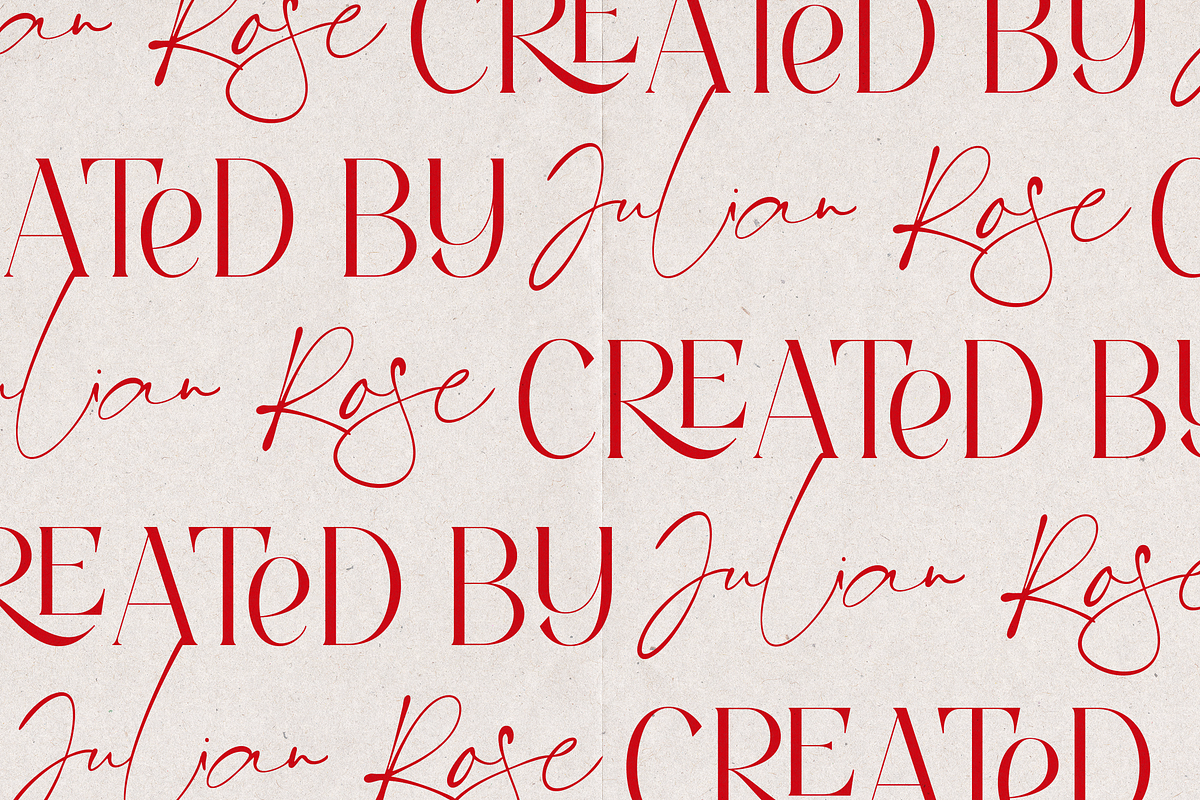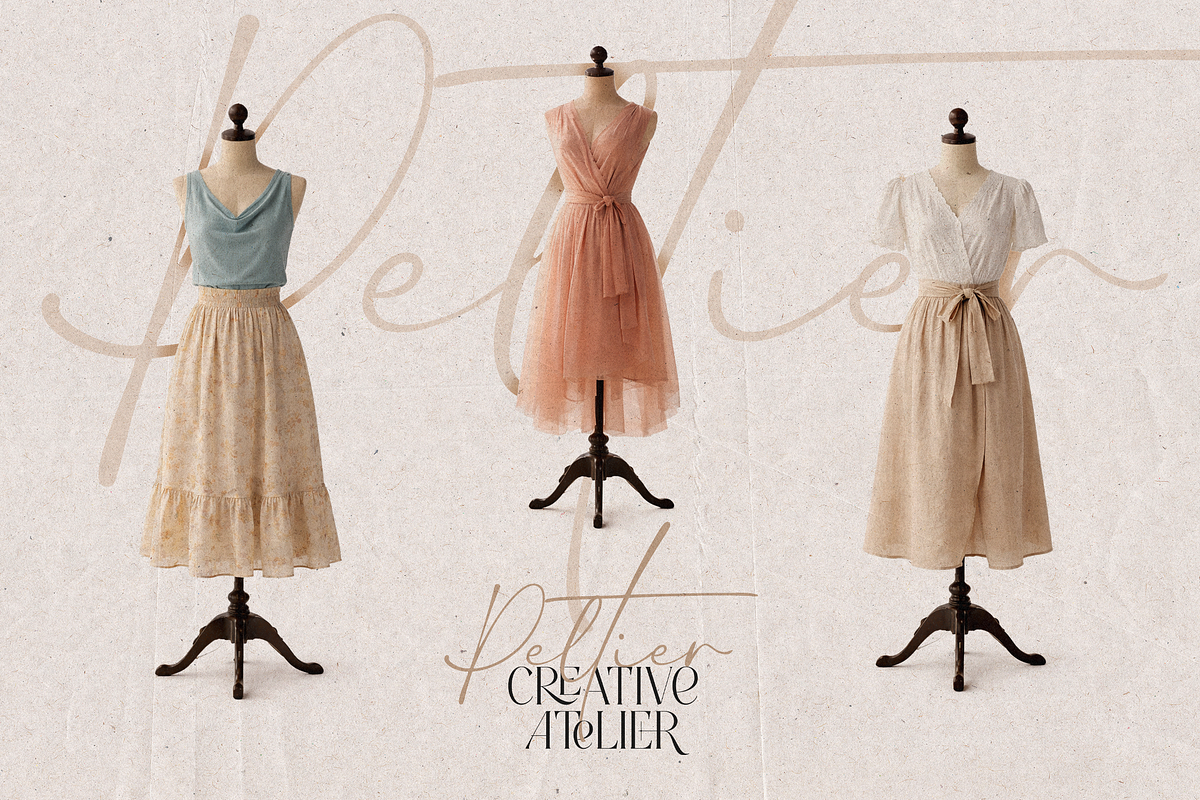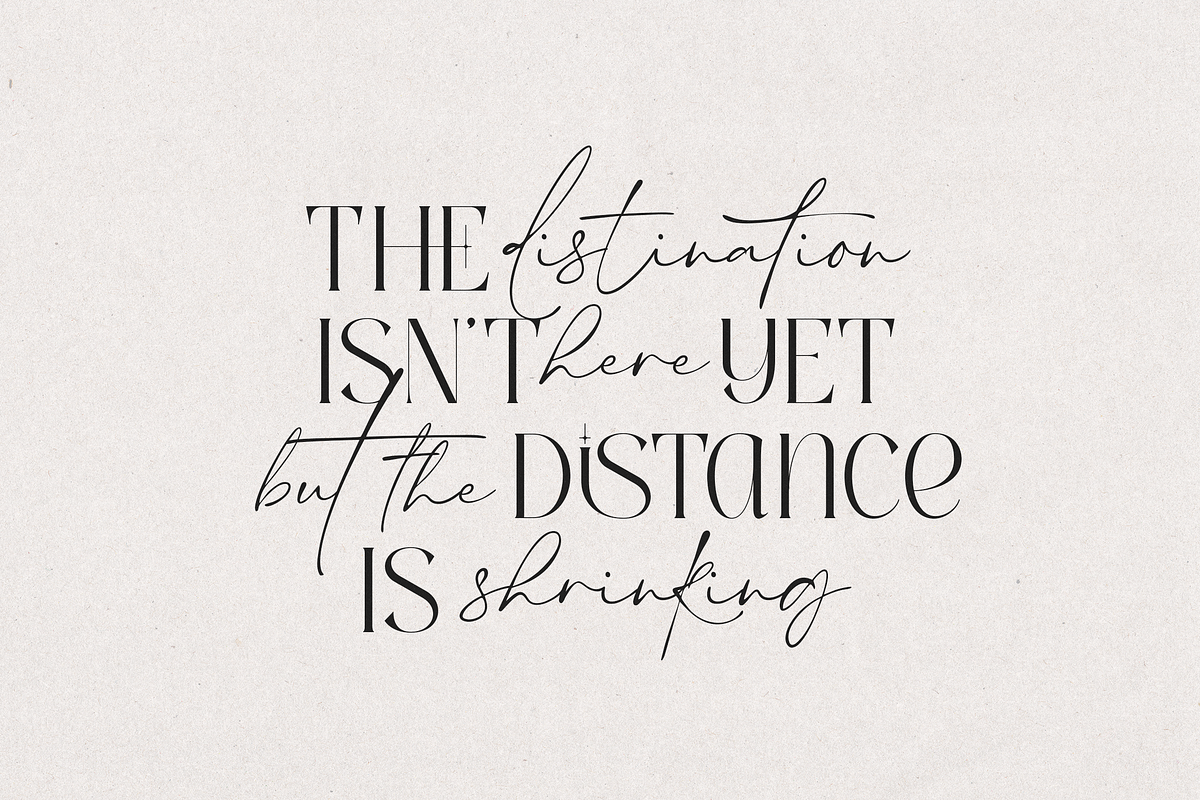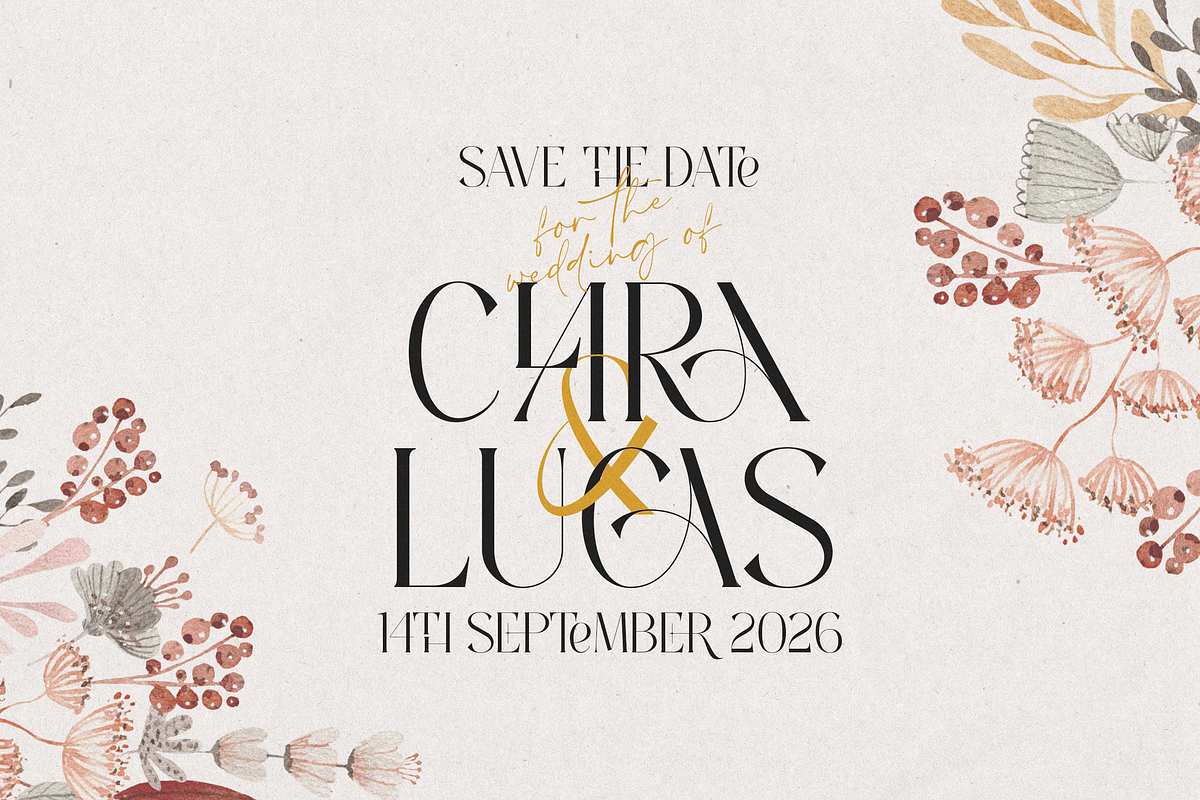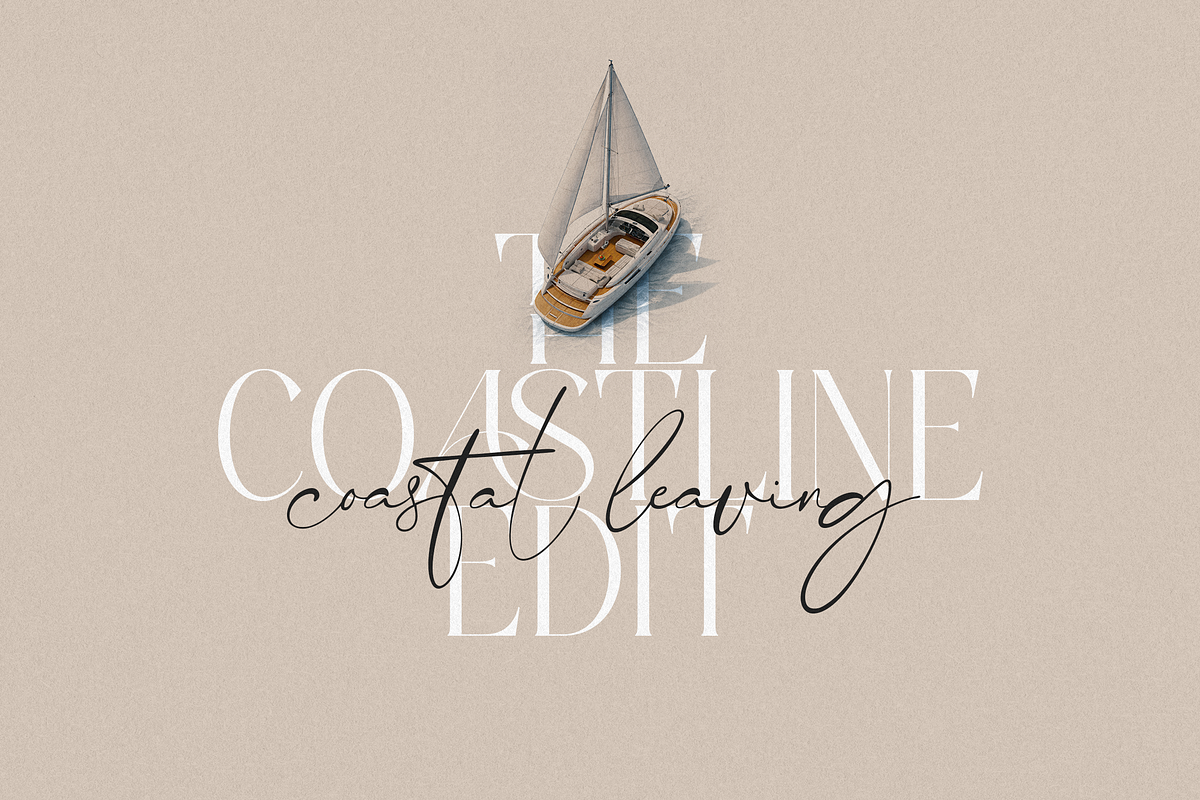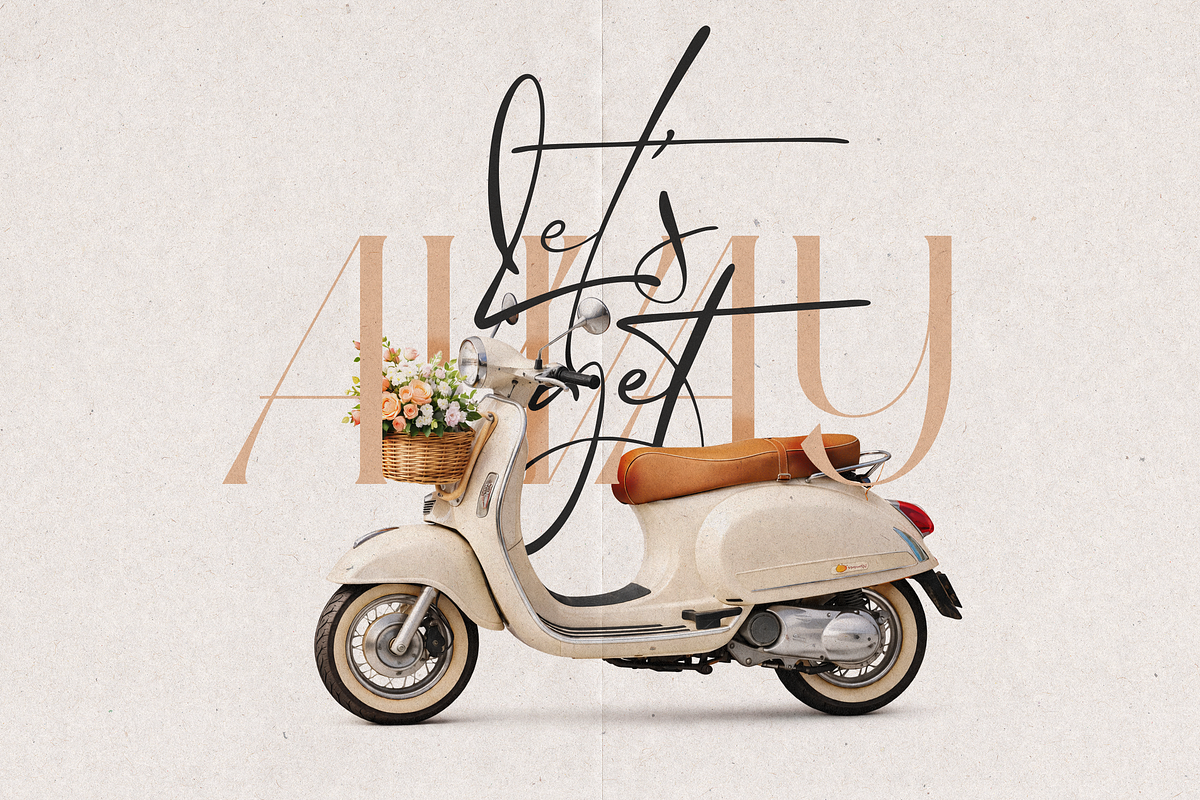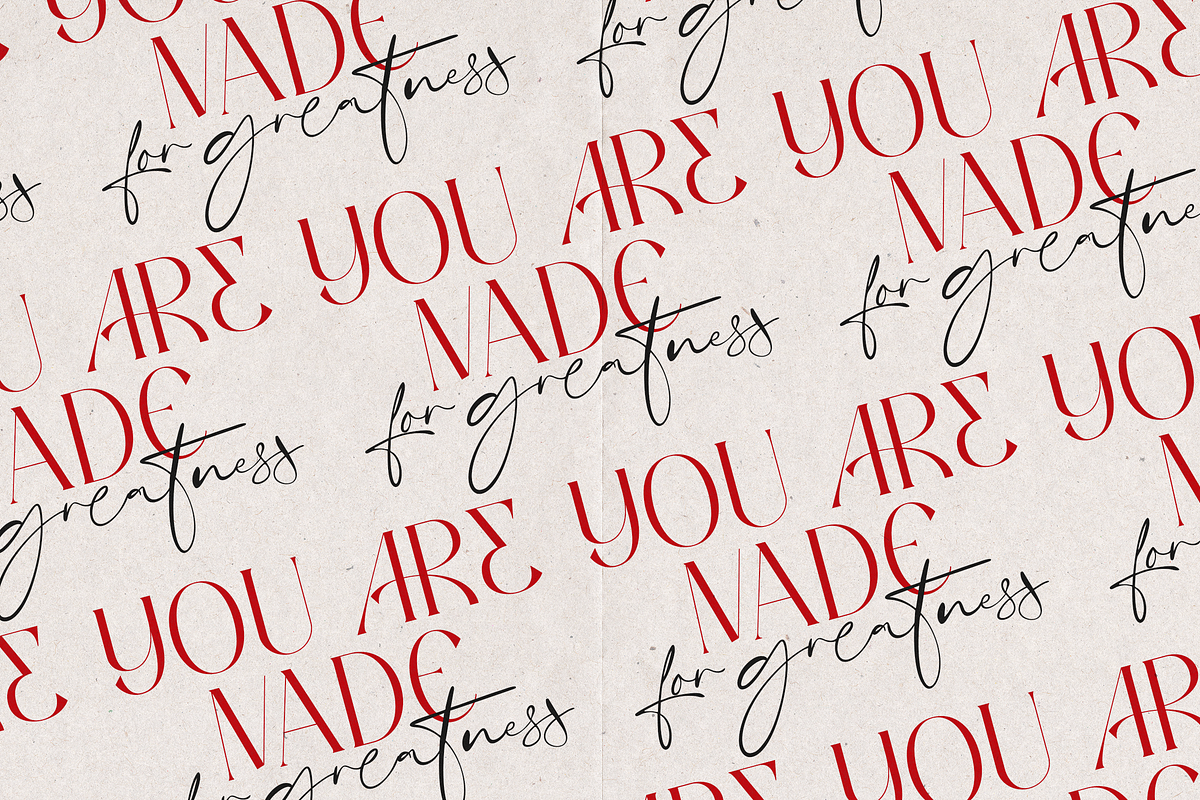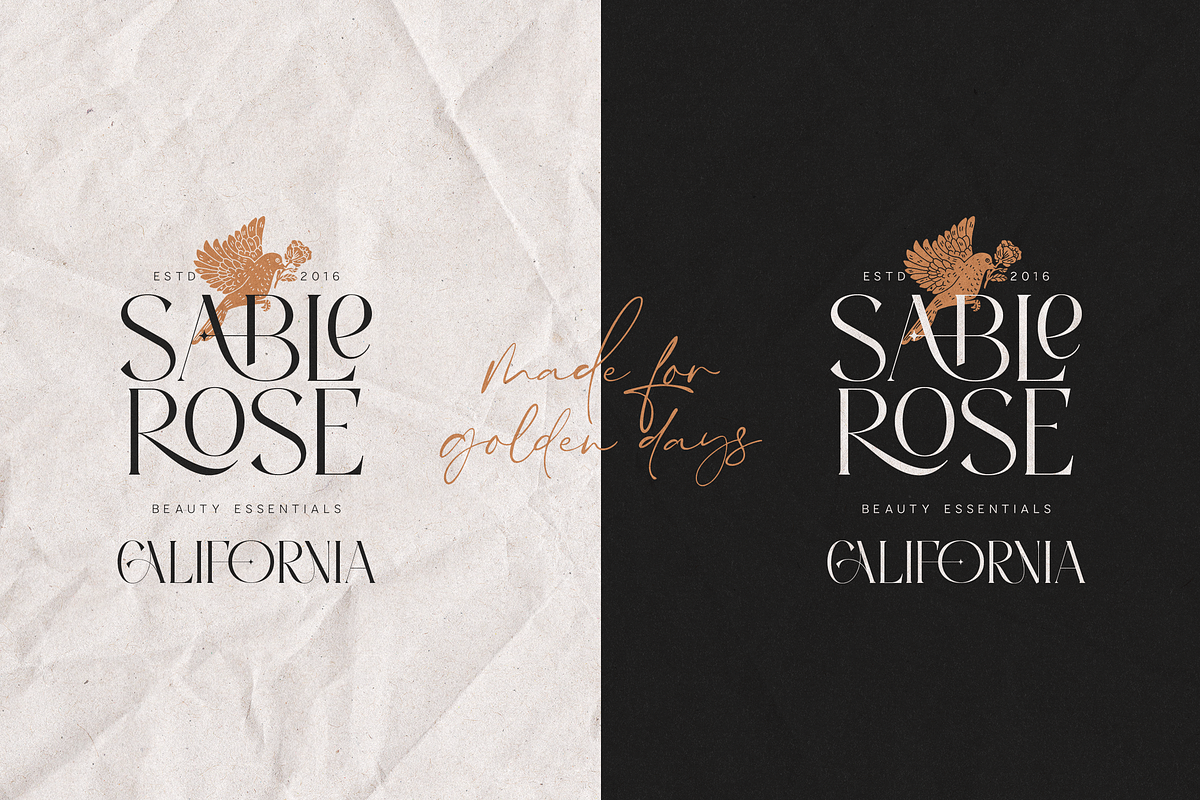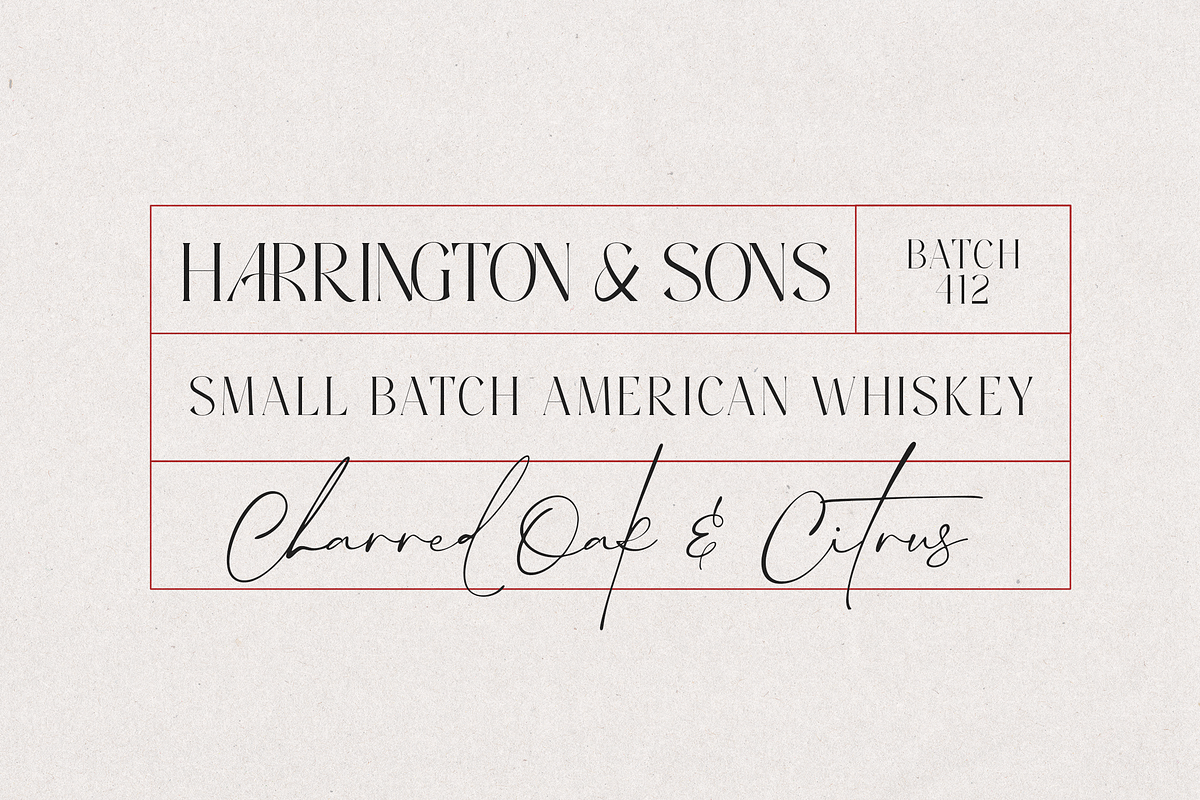
Anna Glave - Serif & Script Font Duo
Anna Glave - Romantic Serif & Script Font Duo
Anna Glave is a refined romantic font duo that blends a modern high-contrast serif with a graceful handwritten script, designed to create elegant, emotional, and timeless typography. This duo is crafted for designers who want to elevate branding with a sense of luxury, nostalgia, and modern sophistication.
Inspired by classic editorial typography and romantic calligraphy, Anna Glave delivers a perfect balance between structure and expression - making it ideal for both bold headlines and intimate handwritten accents.
Why Anna Glave Works So Well
The serif font features sharp details, stylish ligatures, and fashion-forward proportions that feel premium and editorial. The script font adds warmth and personality with fluid strokes, expressive swashes, and multiple stylistic sets - allowing you to customize your typography and create unique compositions every time.
Together, they form a powerful pairing for high-end branding and storytelling design.
- Elegant Serif + Script Font Duo
- High-contrast modern serif with stylish ligatures
- Expressive script with multiple stylistic alternates
- Smooth kerning and balanced spacing